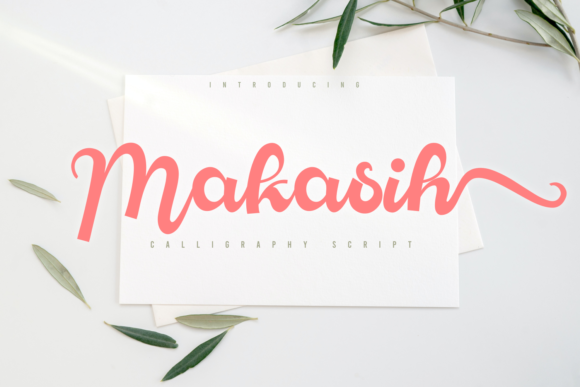
Makasih Font
Behold Makasih Font, a script font family that exudes charm and elegance, captivating your senses with its exquisite beauty. Immerse yourself in a world of creativity, where Makasih's graceful lines and elegant strokes breathe life into your designs, transforming them into masterpieces.
Unleash your artistic potential with Makasih, the perfect choice for adding a touch of sophistication and personalization to your projects. Picture your wedding invitations adorned with Makasih's delicate script, conveying the heartfelt emotions of your special day. Express gratitude with Makasih-designed thank you cards, leaving a lasting impression of appreciation. Let Makasih's charm shine through in your quotes, greeting cards, and logos, creating a visual impact that resonates with your audience.
With Makasih, your designs transcend the ordinary, radiating a timeless allure that captures attention and ignites imagination. Whether it's a business card that exudes professionalism or a logo that embodies your brand's unique identity, Makasih elevates your designs, making them stand out from the crowd.
Makasih's versatility extends beyond its aesthetic appeal. Its PUA encoding grants you effortless access to a treasure trove of glyphs and swashes, empowering you to unleash your creativity and bring your design visions to life.
Embark on a creative journey with Makasih, a font that transforms your designs into captivating expressions of art. Its beauty and functionality will leave you spellbound, inspiring you to create designs that resonate with your audience, leaving an indelible mark in the world of art and expression.